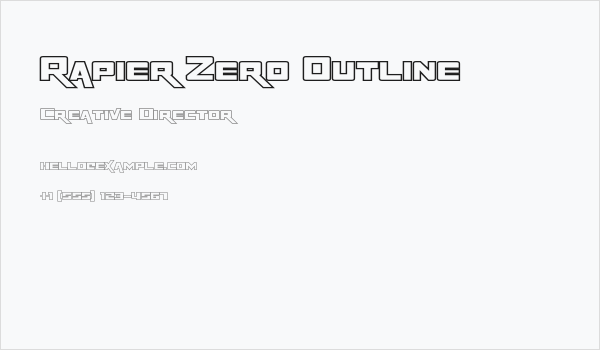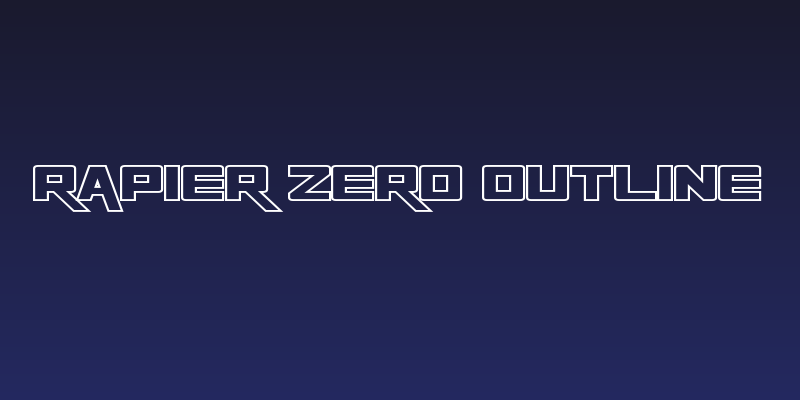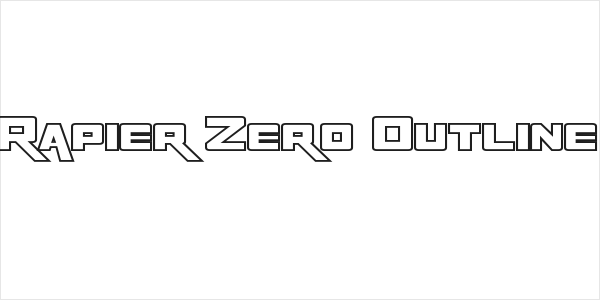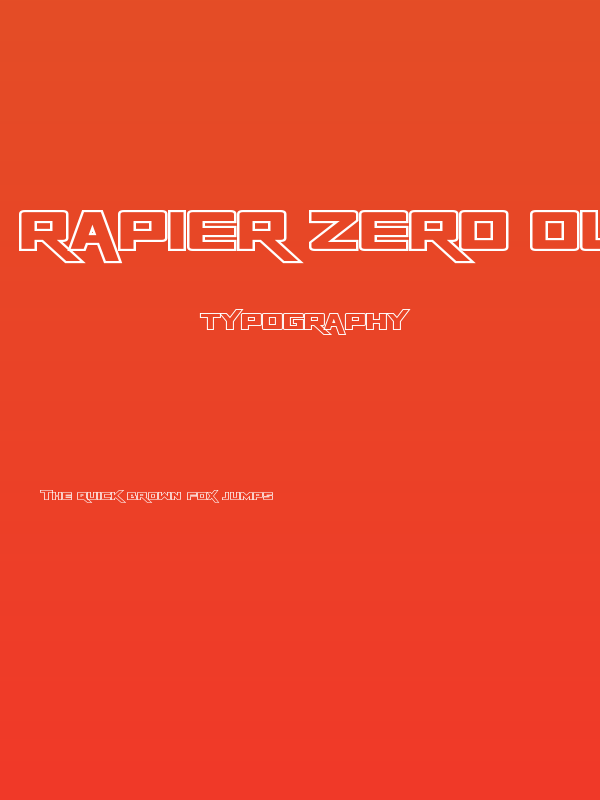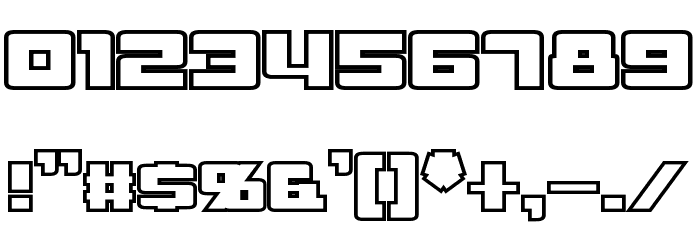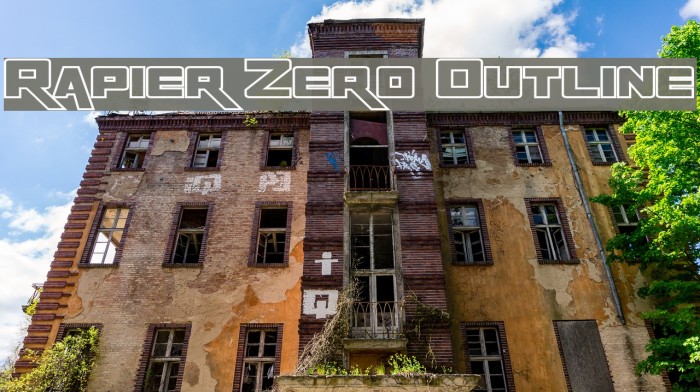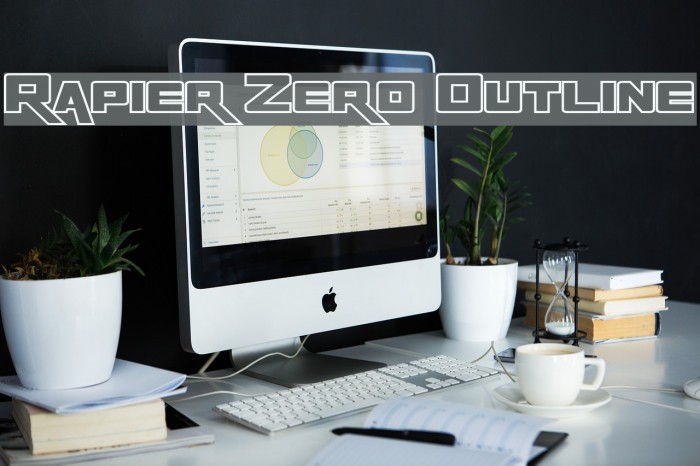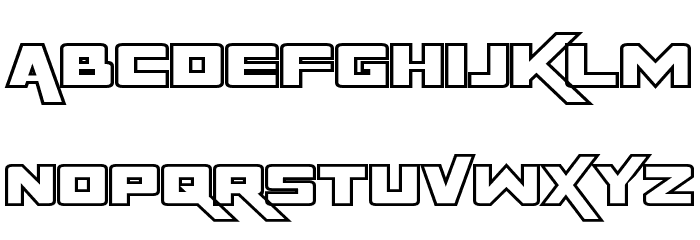
Rapier Zero Outline Font
Rapier Zero Outline Description
This font features a bold, angular design with a distinct outline style that gives it a futuristic and dynamic appearance. The characters are constructed with sharp edges and geometric forms, creating a sense of movement and energy. The uppercase and lowercase letters maintain a consistent style, with the lowercase slightly smaller but equally impactful. The numerals and special characters follow the same design principles, ensuring uniformity across all glyphs. This font's outline nature allows for versatile use, either as a standalone design element or layered with other colors and textures.
| Overall Style | Futuristic, Dynamic |
| Proposed Projects | Ideal for sci-fi themed projects, video game titles, posters, and branding that requires a modern, edgy look. |